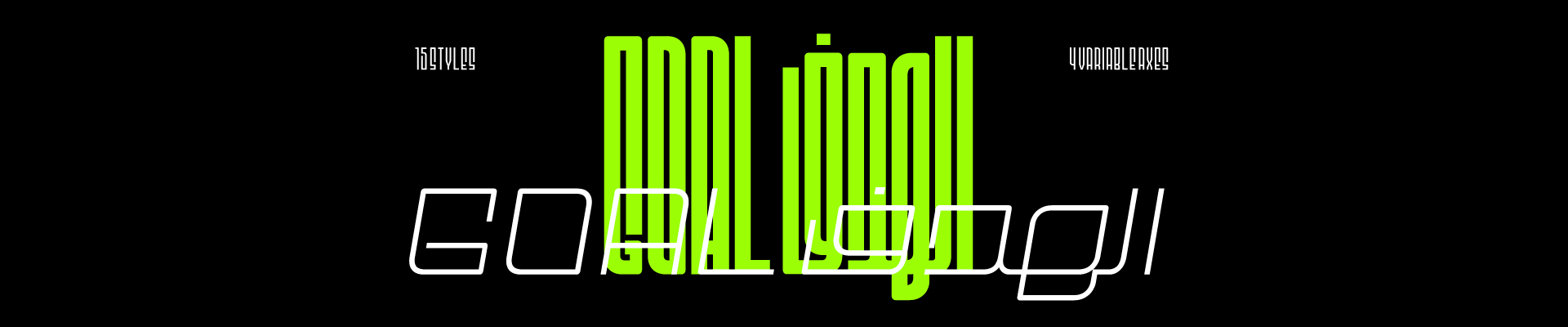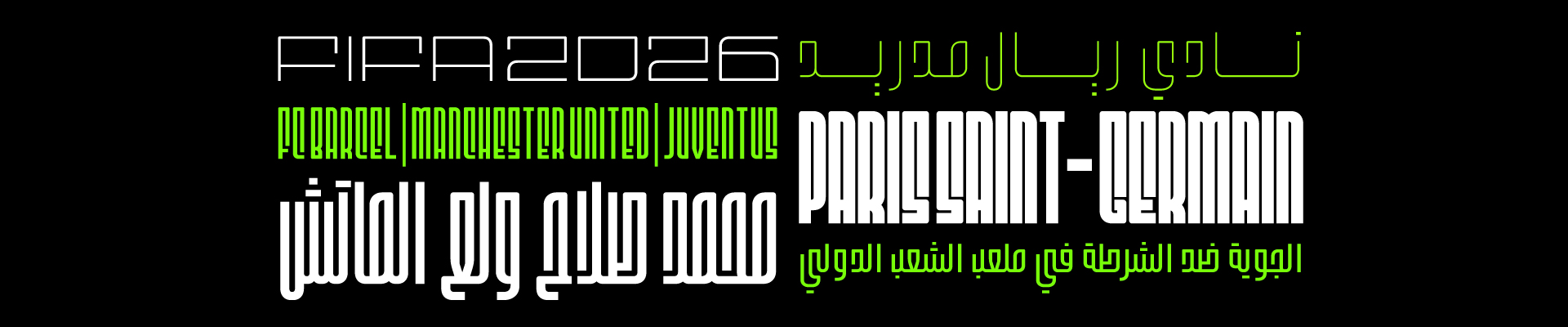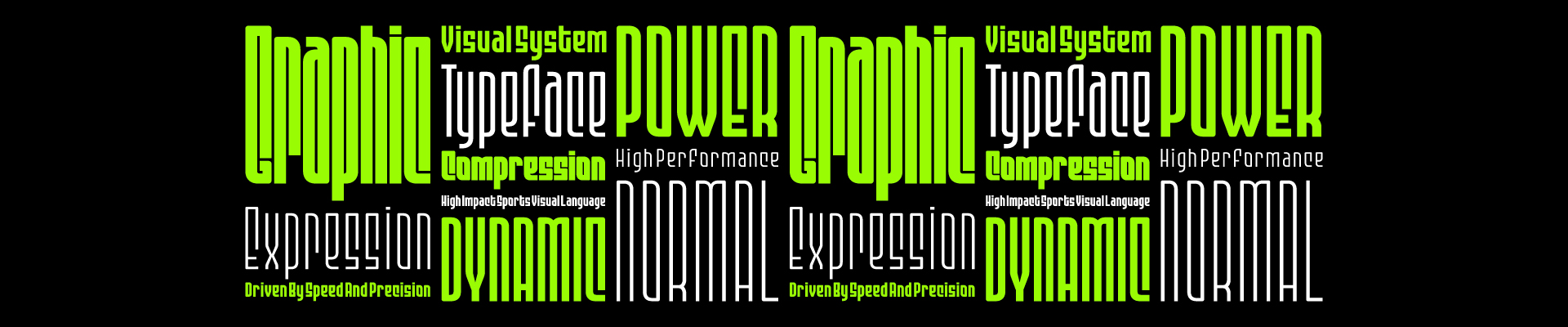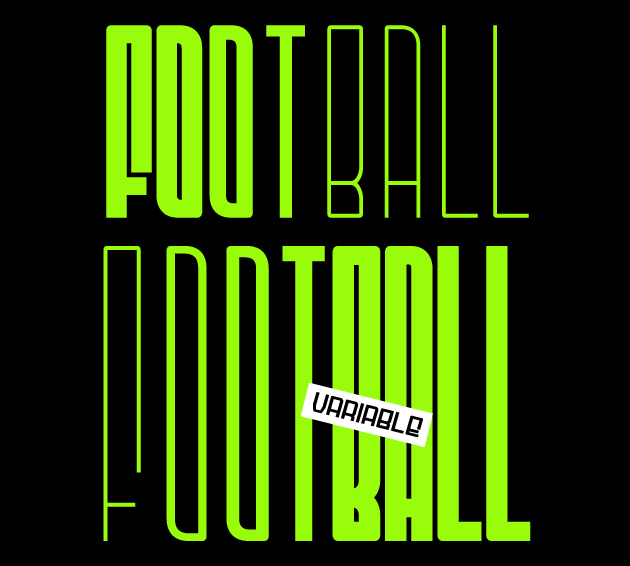
• Goal Font
TS Goal is a variable sports sans-serif typeface. Its Arabic letterforms are built on geometric Kufic script, giving the typeface a strong, modern, and dynamic character.
The typeface includes 4 variable axes: weight, height, width, and slant.
All axes work seamlessly across both Arabic and Latin scripts, giving users a high level of flexibility to create a wide range of styles and adapt the typeface to different design needs.